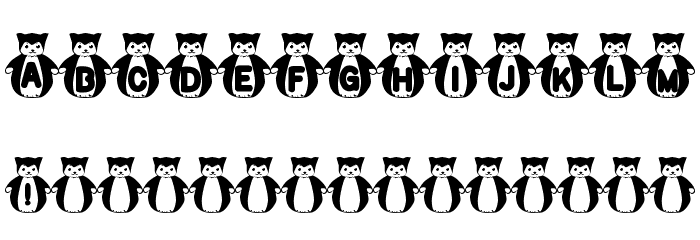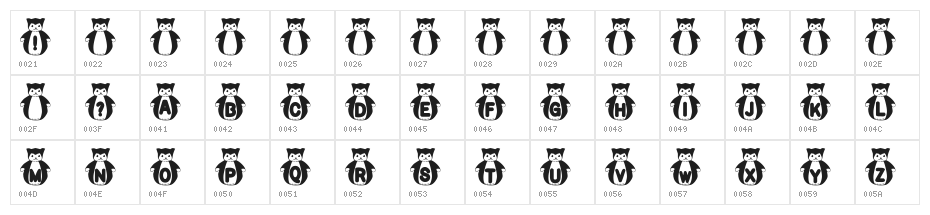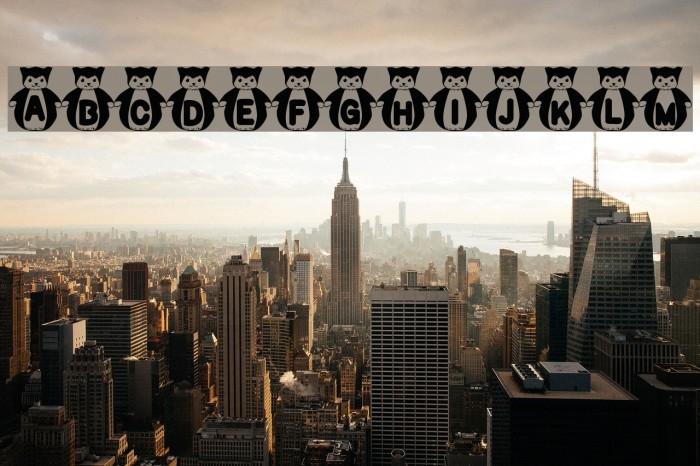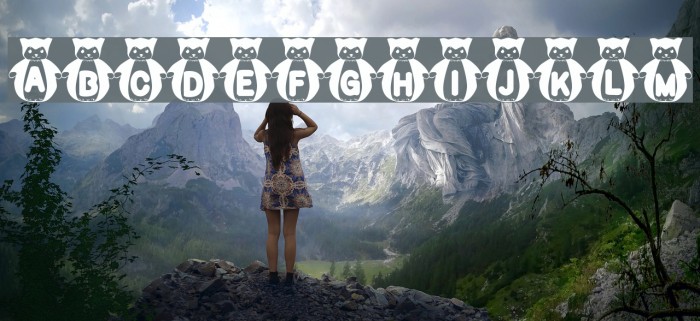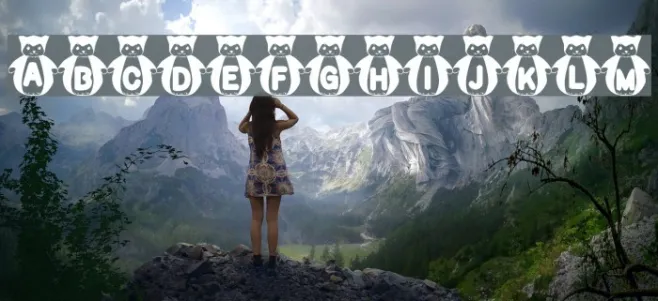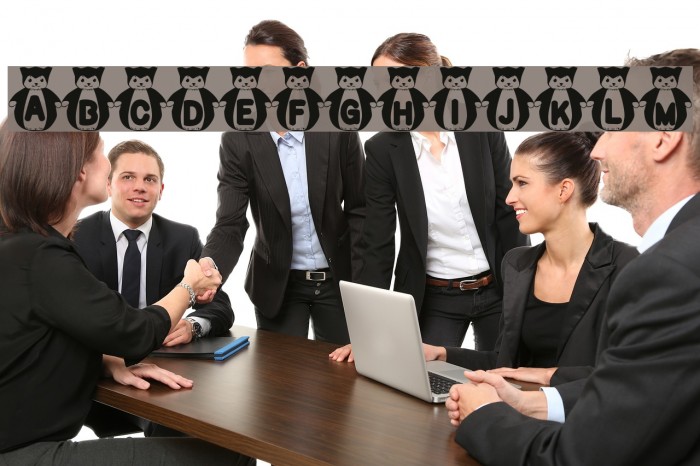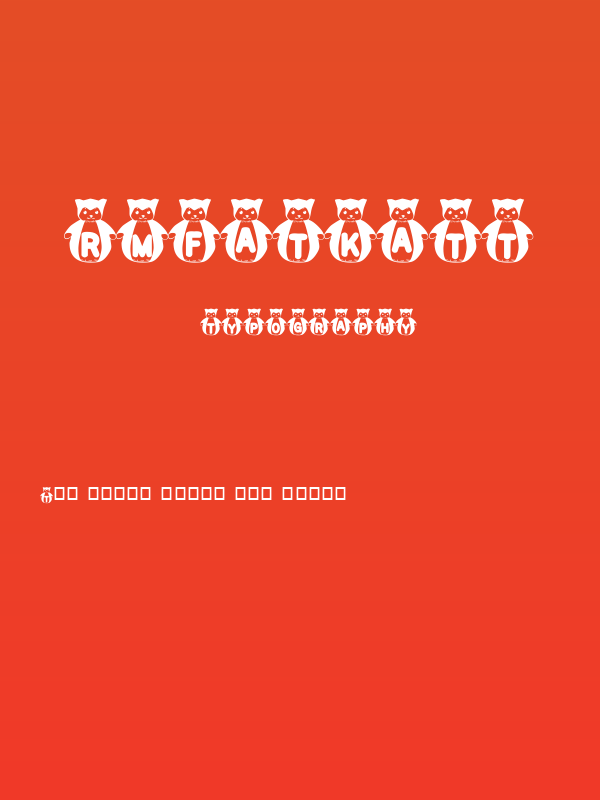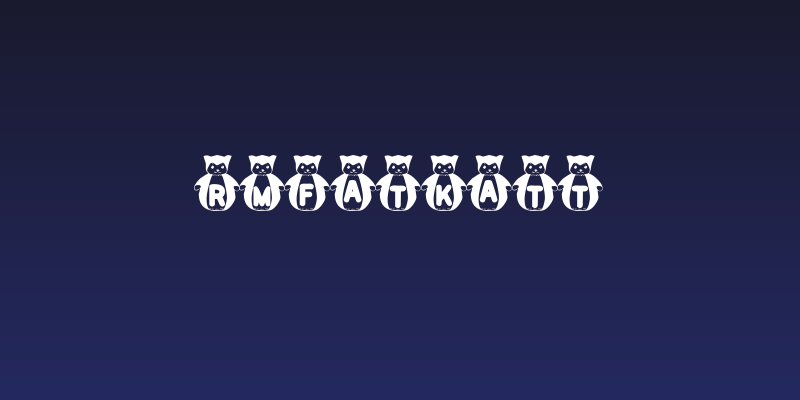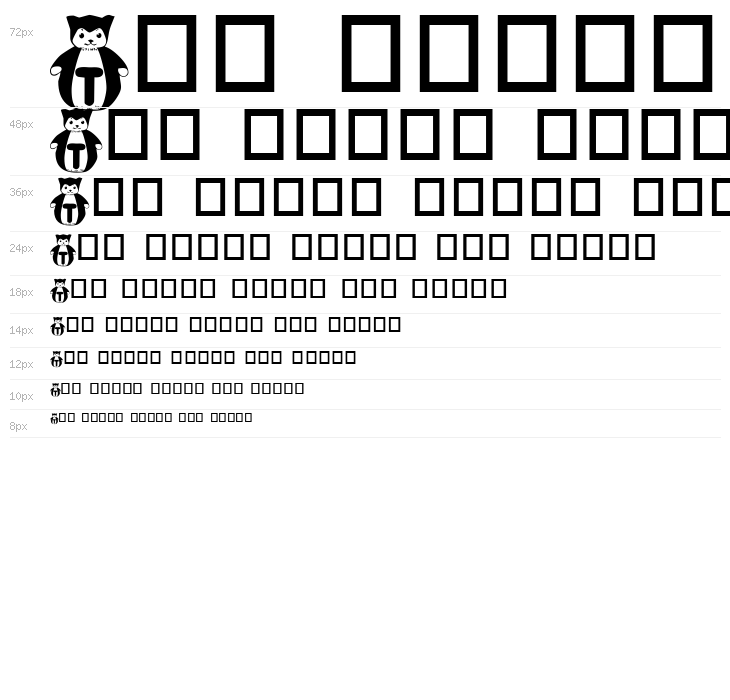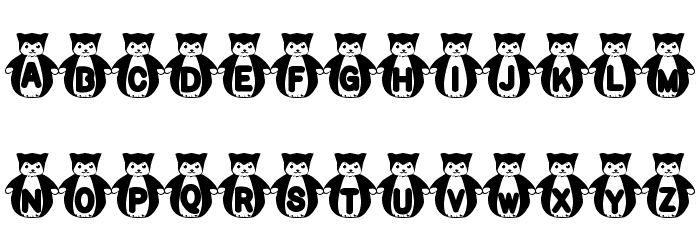
rmfatkatt Font
rmfatkatt Description
This playful and whimsical font features characters encased within adorable penguin shapes, creating a unique and charming appearance. Each letter is bold and clear, making it easily readable while maintaining its decorative nature. The penguins are uniformly styled, adding a cohesive and fun element to the text. This font is perfect for projects that require a touch of whimsy and creativity, such as children's books, playful branding, or festive invitations. Its distinctive style ensures that any text stands out with a delightful and engaging visual appeal.
| Use Case | Headlines, Logos, Decorative Text |
| Proposed Projects | Ideal for children's books, playful branding, festive invitations, and creative projects. |